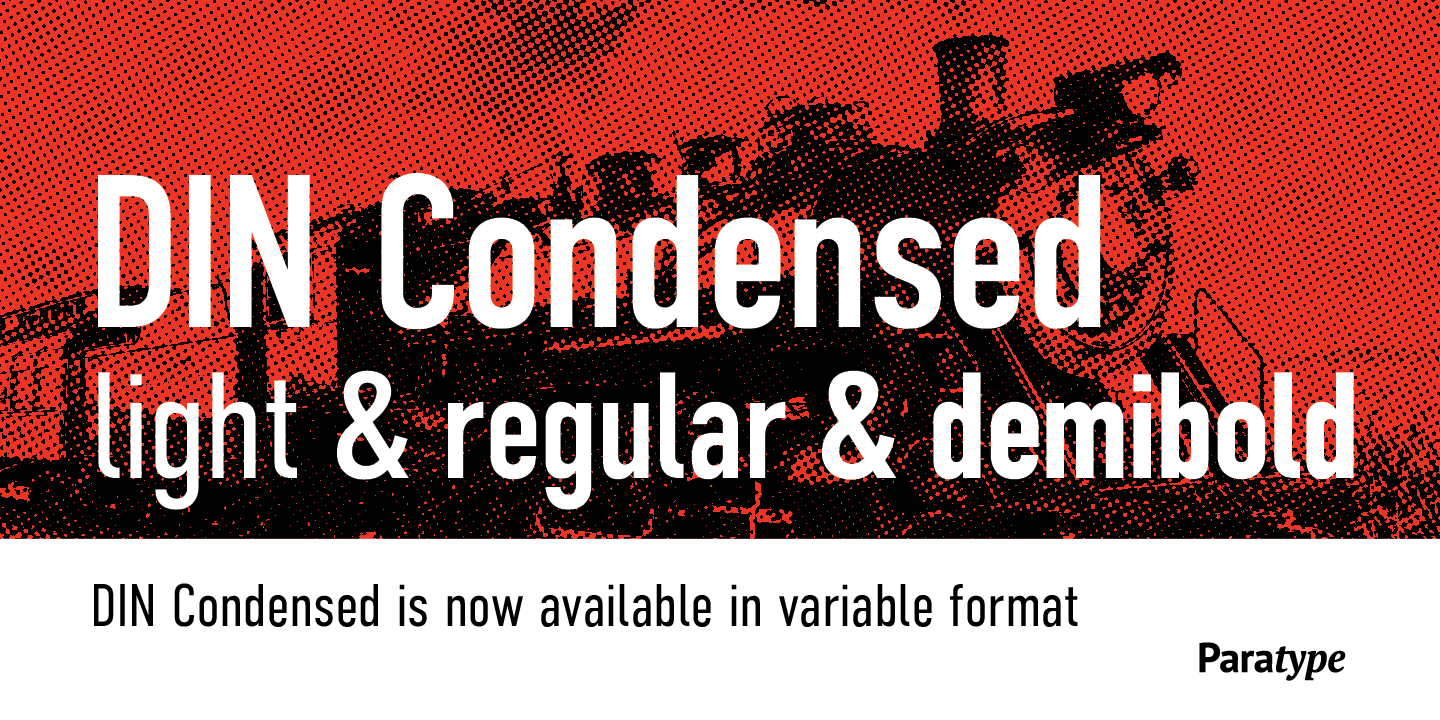
Din Condensed Font is perfect for industrial design branding, German engineering communications, technical specification sheets, automotive industry materials, precision manufacturing documentation, architectural presentation systems, modern signage projects, efficient corporate communications, systematic product packaging, and professional technical publications.
What makes Din Condensed Font so exciting is its extraordinary ability to embody the legendary precision and systematic efficiency of German engineering through space-optimized letterforms that seem engineered with the same exacting standards that create the world's finest machinery and most reliable industrial systems. This font captures the essence of Germanic excellence and methodical design thinking, featuring systematically condensed characters that appear designed by engineers who understand that maximum information density must never compromise clarity or professional presentation. The efficiently structured letter shapes create an atmosphere of technical authority and industrial reliability, making every word feel like it carries the guarantee of German precision and the promise that every detail has been optimized for maximum performance within minimal space requirements.
The Din Condensed Font family includes Ultra Light, Light, Regular, Medium, Bold, and Black weights, along with corresponding italic variations for emphasis applications. Each style maintains the font's distinctive condensed character while offering complete versatility for different industrial applications, from subtle technical annotations to commanding headlines that announce breakthrough achievements in engineering excellence and systematic innovation.
This precise typeface brings authentic German industrial design aesthetics to contemporary projects. The Din Condensed Font Free Download provides designers with an exceptional tool to create memorable brand identities that communicate efficiency, reliability, and systematic excellence. Whether you're developing industrial company branding, designing technical documentation materials, or creating space-efficient communications, this font delivers unmatched precision and Germanic credibility.
The meticulously engineered letterforms in Din Condensed Font feature optimal geometric proportions and systematic spacing that ensure maximum legibility within minimal horizontal space while expressing the disciplined thinking and methodical approach that define German engineering standards. Each character has been calibrated to achieve perfect clarity while conveying the exacting quality control and systematic optimization that separate German-engineered solutions from ordinary manufactured products. The font's distinctive personality makes it ideal for applications requiring established technical authority and industrial design credibility.
Engineering and manufacturing professionals appreciate how Din Condensed Font effortlessly communicates expertise, systematic thinking, and space efficiency while adapting seamlessly to complex technical documentation and multi-column layouts that require consistent performance across diverse industrial applications. The comprehensive glyph set includes technical symbols, engineering notation, measurement indicators, and extensive international language support, ensuring global compatibility while maintaining its distinctive Germanic condensed identity. This makes it an invaluable resource for engineering firms, manufacturing companies, architectural practices, and any organization seeking typography that embodies the fundamental German design principles of systematic efficiency, precise execution, and the understanding that true engineering excellence requires the kind of methodical attention to detail that transforms good products into legendary examples of human industrial achievement while maximizing information density without sacrificing the clarity that makes complex technical communication accessible and professional.